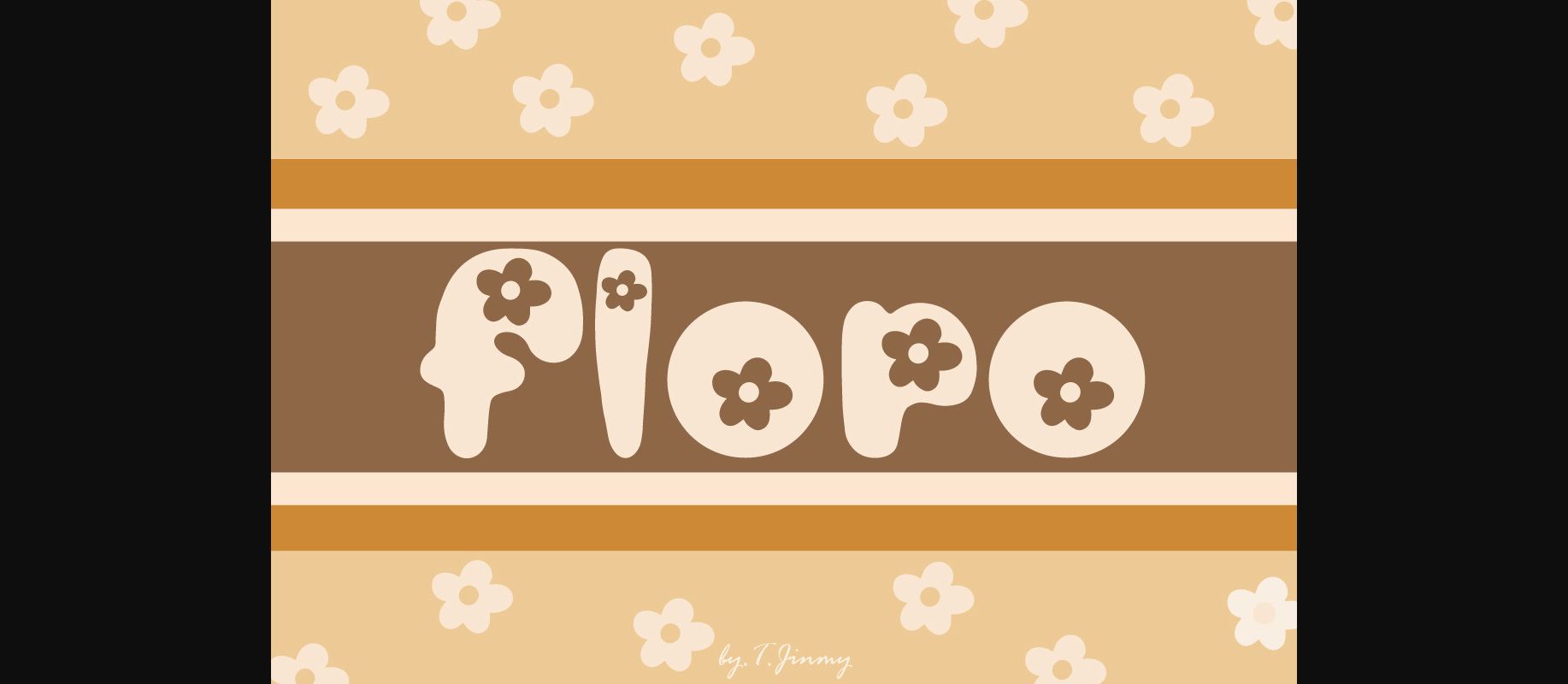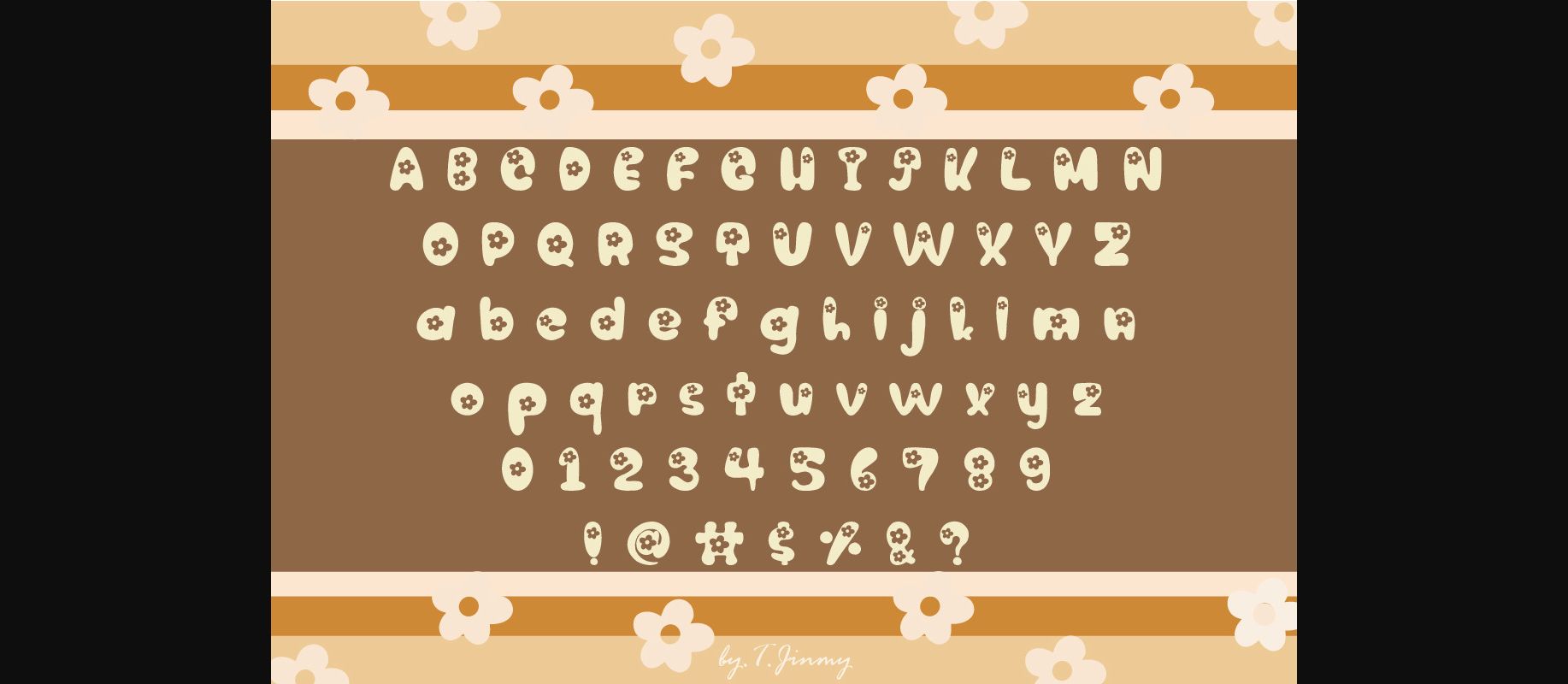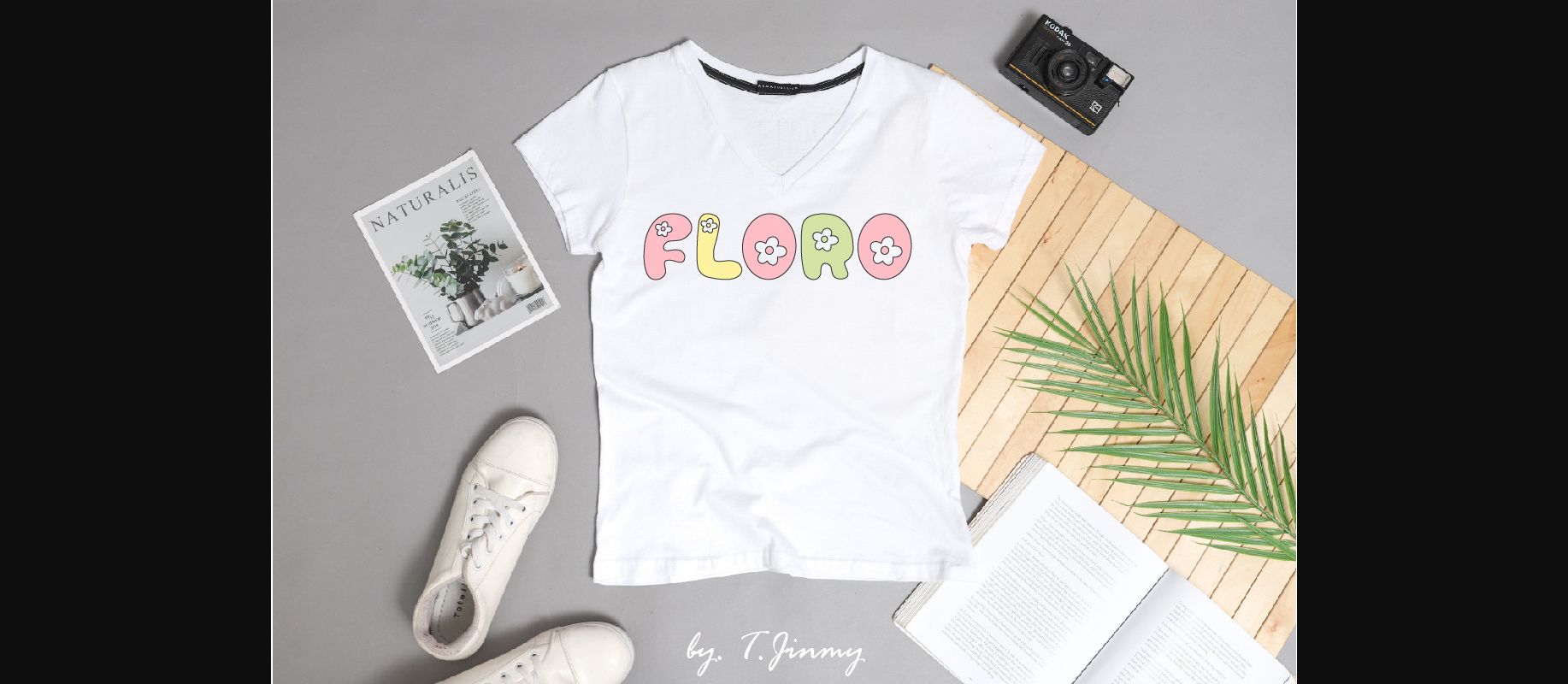
Floro Font
About Floro Font
Floro is a cute font style. This beautiful decorative font is the perfect fit for all of your logos, branding, social media, crafty DIY projects, and much more!